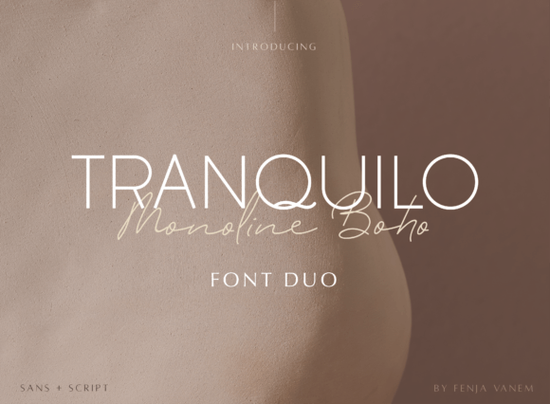
If you've been searching for a font that feels both clean and warm at the same time, Tranquilo Monoline Boho Font might be exactly what you need. It's a duo font pairing a simple sans-serif with a flowing script designed for anyone who wants their projects to look polished without being overly decorated. Whether you're building a brand, designing wedding stationery, or creating products to sell online, this font keeps things minimal while still feeling warm and inviting.
What kind of projects work well with a monoline boho font?
Monoline fonts where every stroke has the same consistent thickness give designs a clean, modern feel. When you pair that with a boho-inspired script, you get something that works across a surprisingly wide range of projects:
- Branding and logos for boutique shops, wellness brands, or lifestyle businesses
- Wedding invitations and event stationery
- Social media graphics that need a refined but approachable look
- Product packaging for candles, skincare, handmade goods
- Print-on-demand designs for mugs, tote bags, and apparel
- Editorial layouts like magazine headers or blog graphics
The sans-serif half of this duo handles headlines and body text cleanly, while the script adds personality to names, quotes, or accent words. Used together, they create a natural contrast that looks intentional and well-designed.
How does it compare to other script and duo fonts?
There's no shortage of script fonts available, so it helps to understand where this one sits. Simple House font leans more rustic and handmade, which is great for farmhouse-style projects. Amsterdam Signature font has a cursive, personal-letter feel that works beautifully for signatures and logos. Meanwhile, More Good Vibes duo font takes a more casual, playful approach with its pairing.
What sets this particular font apart is the balance. It doesn't try to be edgy or overly decorative. The monoline structure keeps every letter consistent, and the boho influence adds just enough organic warmth without going full hand-lettered. If your brand or project calls for something understated but memorable, this is a strong choice.
Is it a good option for print-on-demand sellers?
For POD sellers, font choice directly affects how professional your designs look on mockups and finished products. A monoline boho style reads well at different sizes, which means it works on both small items like jewelry tags and larger formats like posters or wall art.
Pairing it with other fonts from your library also helps create variety across your product line. For example, you might use Breathine font for a more delicate, airy style in one collection and switch to Handmade font for something with more texture and character in another. Rotating fonts keeps your shop feeling fresh without starting from scratch each time.
Quick tips for using this font effectively
- Use the script sparingly. A word or two in script next to sans-serif text creates visual interest without overwhelming the design.
- Watch your spacing. Monoline fonts look their best with slightly generous letter-spacing, especially at smaller sizes.
- Test at multiple sizes. What looks great on screen might need adjustment when printed always do a test print for physical products.
- Explore the alternate characters. Since the font is PUA encoded, take time to browse the extra glyphs. A simple swash can make a logo feel one-of-a-kind.
Before you decide, try this
Look at three recent projects you've designed or products you've listed. Ask yourself: does the typography match the feeling I want to communicate? If your current fonts feel too busy, too plain, or just not quite right for a minimalist-but-warm aesthetic, this monoline boho duo is worth testing. Start with one project a logo concept, a social media post, or a single product mockup and see how it fits into your workflow. You can find more details and a full character preview at Tranquilo Monoline Boho Font.